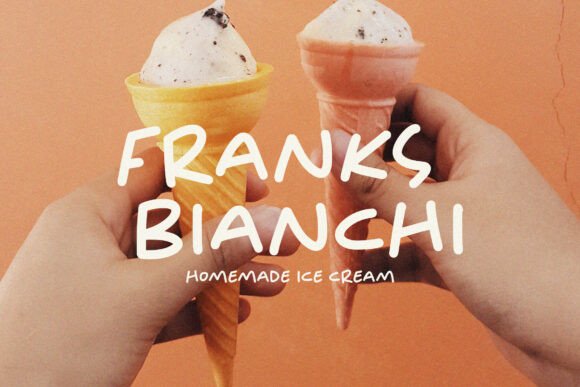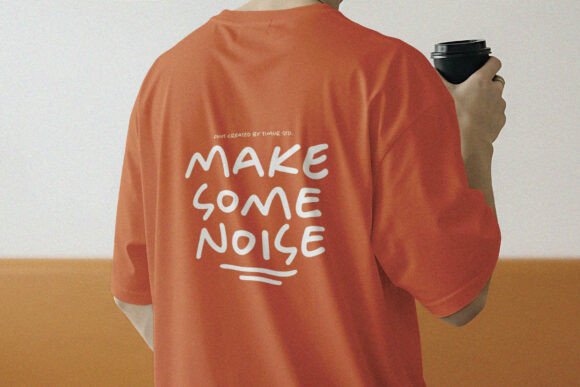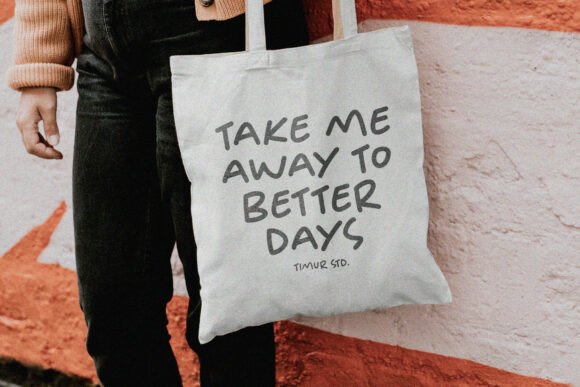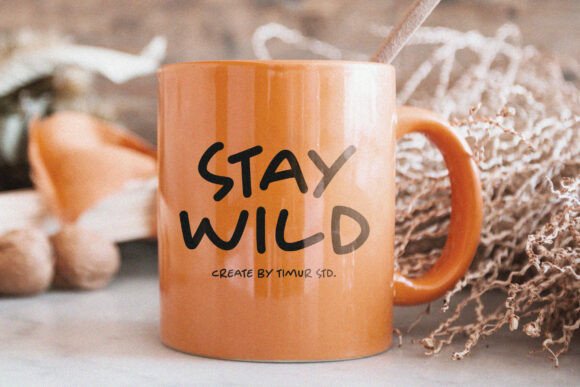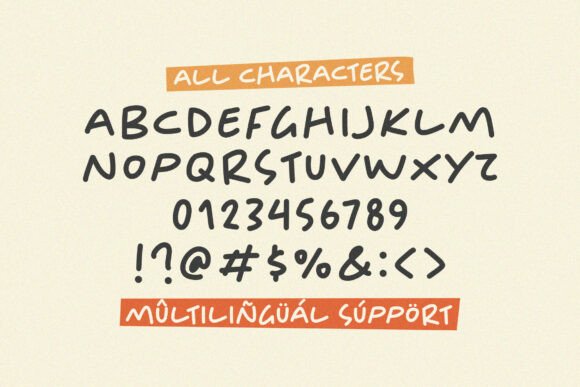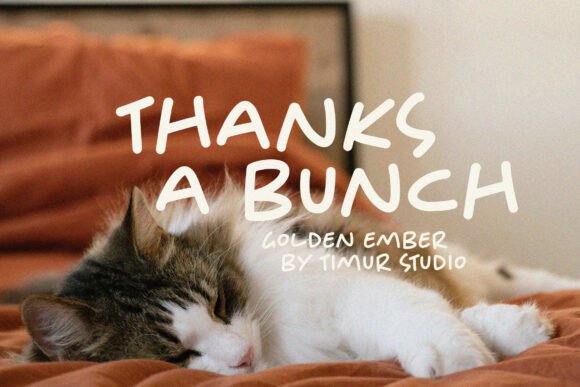
Introduction to Golden Ember Font
Golden Ember is a bold, all-caps handwritten font that radiates fiery energy and handcrafted charm.
Its rugged strokes and organic, imperfect lines create an authentic, hand-drawn feel, making it perfect for logos, posters, branding, and statement designs that demand both strength and warmth Versatile and expressive, Golden Ember also supports multiple languages, ensuring your message resonates beautifully across global audiences.